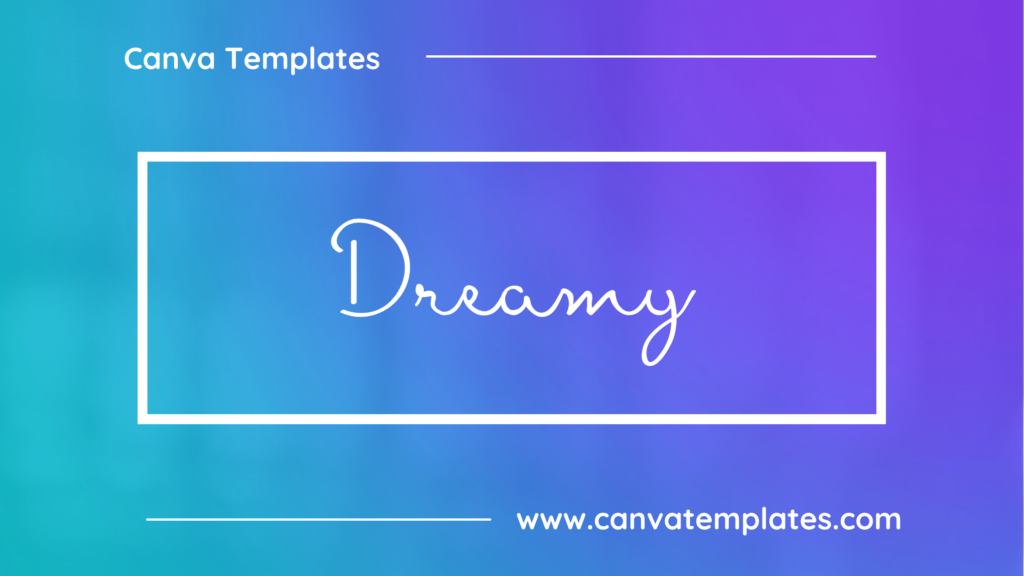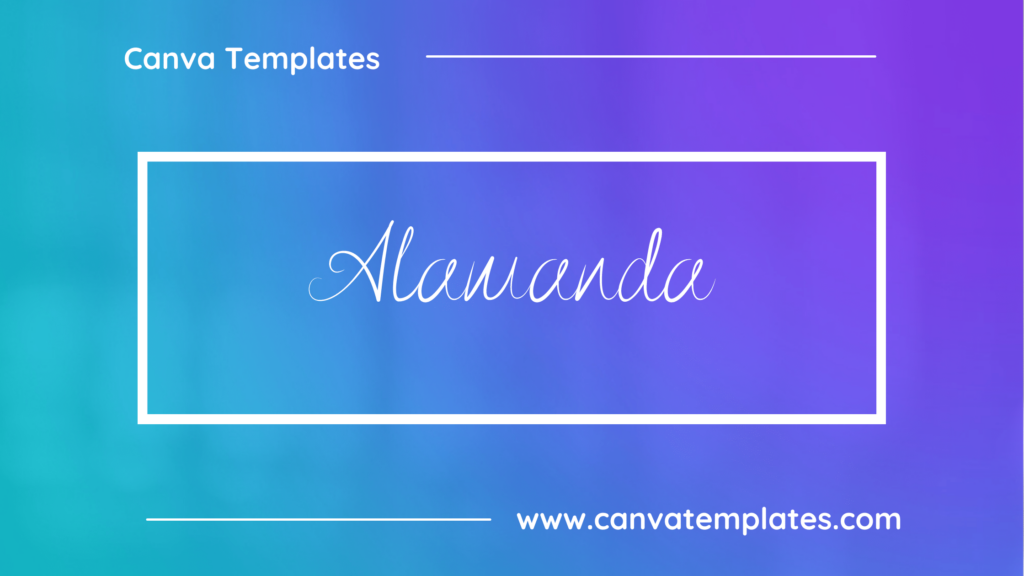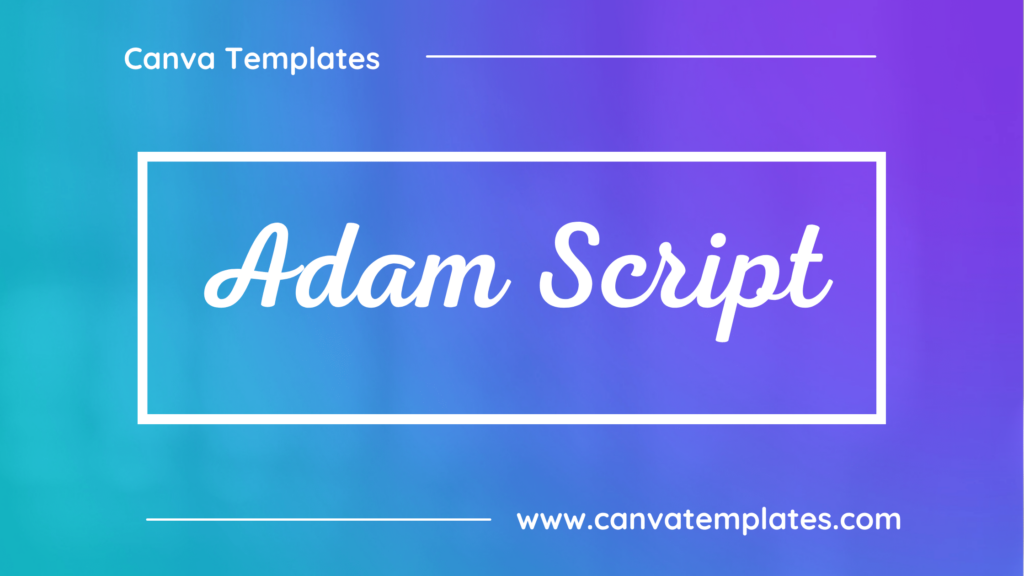
Great graphic design is powered by great font selection. But picking great fonts is a challenge most people. Luckily, Canva has made adding great fonts to your designs much easier. In this tutorial, our team of design experts will cover the best Canva fonts for invitations.
What Are Calligraphy Fonts?
Calligraphic fonts, also known as calligraphy fonts, are designed to resemble the art of calligraphy and are characterized by flowing, ornate letterforms. Some common characteristics of calligraphic fonts include:
- Flourishes: Calligraphic fonts often feature elaborate flourishes, such as loops, curves, and other decorative elements that add a sense of elegance and sophistication to the text.
- Variations in stroke width: Calligraphic fonts typically have variations in stroke width, with thick and thin lines that create a sense of depth and dimensionality.
- Slanted letters: Calligraphic fonts often have letters that are slanted or angled, which can add a sense of movement and energy to the text.
- Serifs: Calligraphic fonts may include serifs, which are the small lines or embellishments at the ends of the letters, that further enhance the decorative and ornate appearance of the font.
- Elegant appearance: Calligraphic fonts have an elegant and sophisticated appearance, making them well-suited for formal invitations, certificates, or other designs that require a sense of refinement and style.
- Traditional feel: Calligraphic fonts often have a traditional, classic feel, which can evoke a sense of history and tradition.
Best Canva Calligraphy Fonts
1. Lavina
Lavina is a cursive script font that features graceful, looping strokes and a slightly vintage vibe. It has a romantic and nostalgic feel, making it well-suited for designs that call for a touch of elegance or sentimentality, such as wedding invitations or greeting cards. The font has a calligraphic design with varying stroke widths and a flowing, organic appearance.
2. Mistrully
Mistrully is a modern calligraphy font that is characterized by its flowing, cursive letterforms and unique, hand-drawn appearance. It has a casual and informal style that is well-suited for designs that require a personal touch, such as invitations, greeting cards, or social media graphics.
3. Snell Roundhand
Snell Roundhand is a script font that is characterized by its flowing and elegant appearance, resembling traditional calligraphy. It has a classic and sophisticated style, with curved letterforms and ornate flourishes that add a sense of refinement and grace to the text. Snell Roundhand is ideal for designs that require a sense of elegance and formality, such as wedding invitations, certificates, or other formal documents.
4. Great Vibes
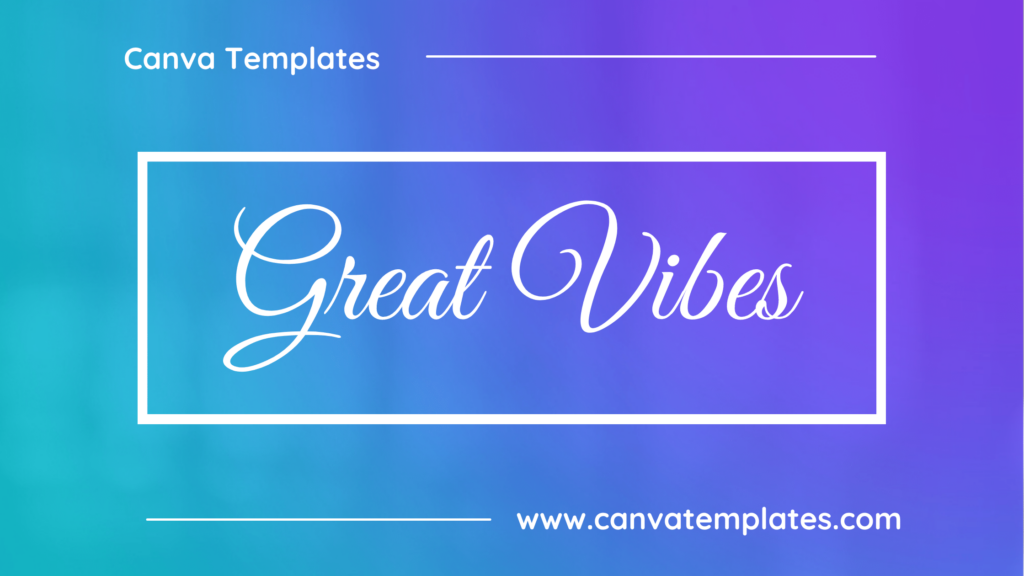
Great Vibes is a script font that is characterized by its flowing and elegant appearance, resembling traditional calligraphy. It has a unique and sophisticated style, with curved letterforms and ornate flourishes that add a sense of refinement and grace to the text. Great Vibes is ideal for designs that require a sense of elegance and sophistication, such as wedding invitations, certificates, or other formal documents.
5. Engagement
Engagement is a script font that is characterized by its flowing and elegant appearance, resembling traditional calligraphy. It has a unique and sophisticated style, with curved letterforms and ornate flourishes that add a sense of refinement and grace to the text. Engagement is ideal for designs that require a sense of elegance and sophistication, such as wedding invitations, certificates, or other formal documents.
6. The Artist Script
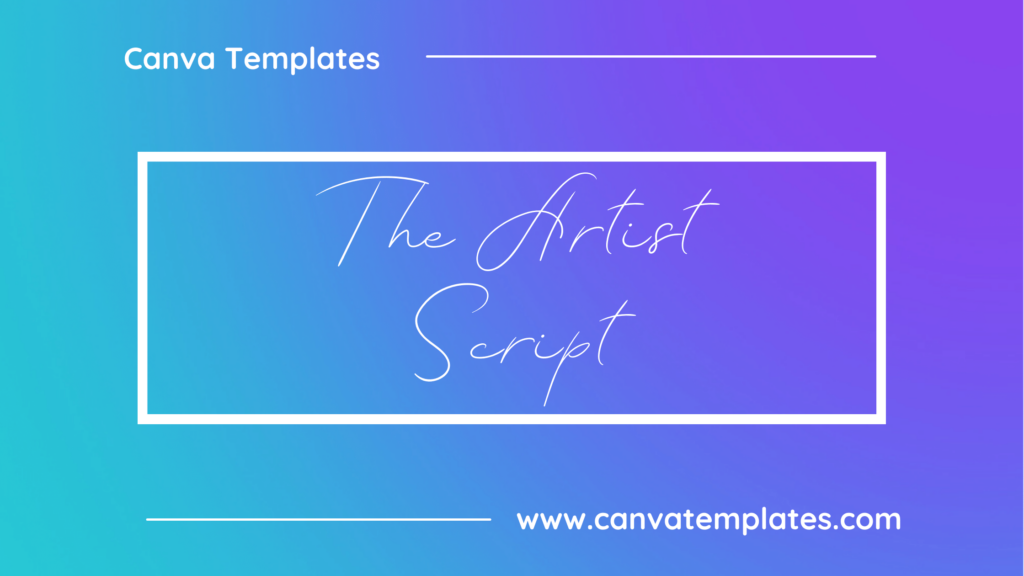
The Artist Script is a script font that is characterized by its flowing and elegant appearance, resembling traditional calligraphy. It has a unique and sophisticated style, with curved letterforms and ornate flourishes that add a sense of refinement and grace to the text. The Artist Script is ideal for designs that require a sense of creativity and personal expression, such as logos, branding materials, or social media graphics.
7. Marck Script
Marck Script is a script font that is characterized by its flowing and elegant appearance, resembling traditional calligraphy. It has a unique and sophisticated style, with curved letterforms and ornate flourishes that add a sense of refinement and grace to the text. Marck Script is ideal for designs that require a sense of elegance and sophistication, such as wedding invitations, certificates, or other formal documents.
8. Featherly
Featherly is a script font that is characterized by its flowing and elegant appearance, resembling traditional calligraphy. It has a unique and sophisticated style, with curved letterforms and ornate flourishes that add a sense of refinement and grace to the text. Featherly is ideal for designs that require a sense of elegance and sophistication, such as wedding invitations, certificates, or other formal documents.